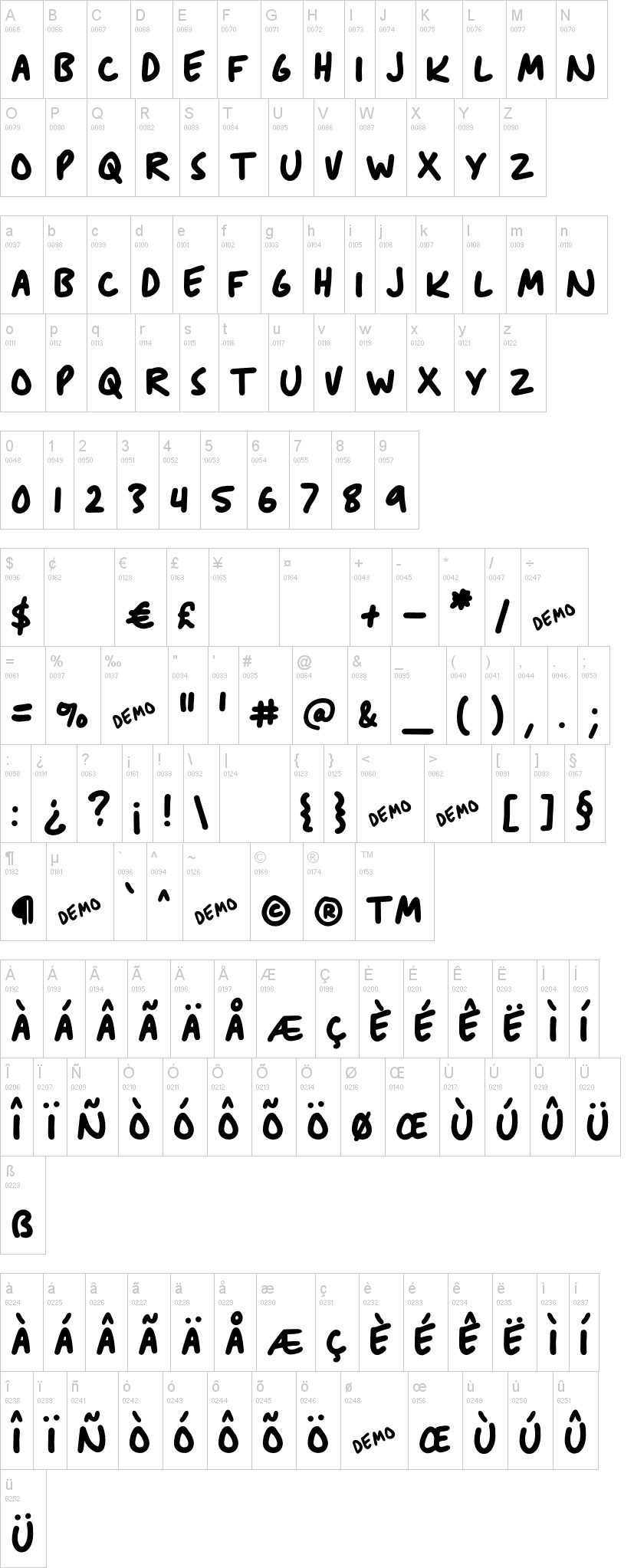
AnitypeJournal-2.otfAnitypeJournal-3.otfAnitypeJournal-4.otfAnitypeJournal-5.otfNote of the authorAnitype Journal is an animated, handwritten typeface. Each glyph is drawn five times to produce a naive animated effect when used as frames of an animation. It can be animated in CSS, Javascript, or however else as long as the fonts switch!